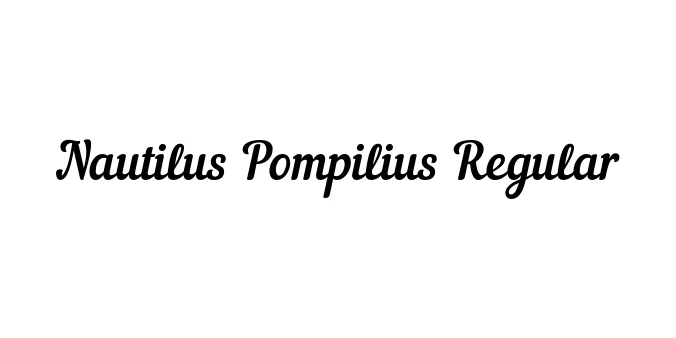
Nautilus Pompilius Regular
Designed by Evgeniy Grizlov
Nautilus Pompilius is a distinctively elegant script typeface that draws inspiration from maritime aesthetics and classic brush calligraphy. Created by Evgeniy Grizlov, the font features smooth, flowing strokes and a balanced weight that provides high legibility despite its expressive nature. Its design evokes a sense of vintage sea-faring adventure while maintaining a modern, clean finish that works across digital and print mediums.
This font has become a favorite among designers for its unique personality, bridging the gap between decorative display and functional script. The Regular weight is particularly versatile, offering enough visual interest for logo design while remaining readable enough for short blocks of text. Its consistent rhythm and graceful curves make it an ideal choice for projects that require a touch of character and sophisticated craftsmanship.
Nautilus Pompilius Regular Best Uses
Excellent for creating memorable, character-rich brand identities.
Perfect for cafe boards, coastal storefronts, and restaurant menus.
Ideal for artisanal food, craft beverages, or ocean-themed products.
Adds a bold, stylistic touch to website hero sections and titles.